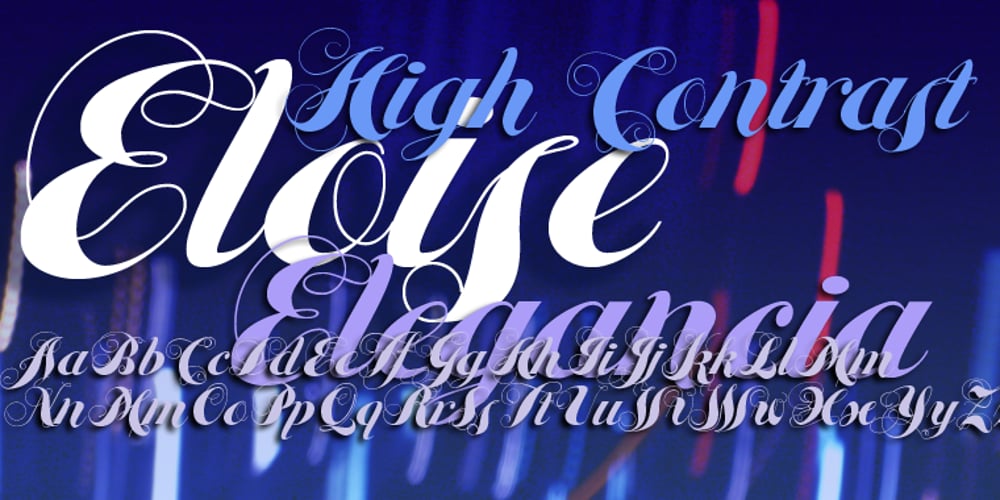
Eloise Font Family was designed by Gert Wiescher and published by Wiescher Design. Eloise contains 1 styles and family package options. Ever since I first designed Ellida in 2005, that elaborate script in the tradition of the 18th-century English calligrapher George Bickham and the 19th-century American calligrapher Platt Rogers Spencer, I wanted to add a very high contrast cut to the family. I finally did so. But the result looks so much different to Ellida that I had to give it another name, hence “Eloise”. Eloise should actually be written with a ‘i’ that has double dots, but that would be difficult for international use. Eloise is a beautiful first name not only for French girls. Pronounce: Ay-low-eese. If I would have had a daughter, I would have called her “Eloise” (with double dots!). But instead I have two phantastic sons, so I never got the chance to use it. Actually one of my sons discovered it on his little boys sand shovel, it was called Eloise. Your decorative designer with a heart for sand shovels Gert Wiescher